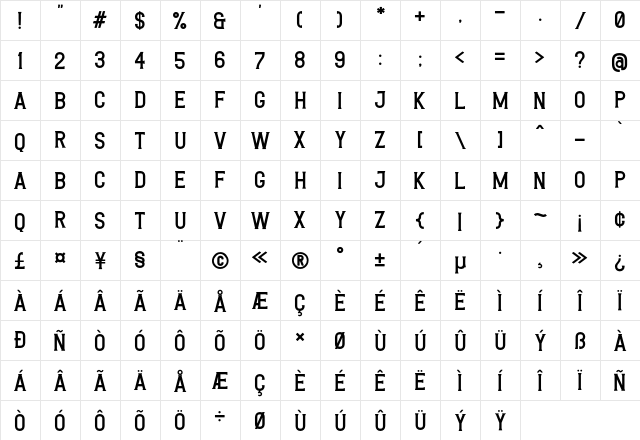
Rutheride Regular
| Foundry | Hendra Pratama & Fajar Abdul Fatah |
| Designer | Hendra Pratama & Fajar Abdul Fatah |
Design Context for Rutheride Typeface
Rutheride offers clean, dependable letterforms without strong stylistic allegiance, making it a practical choice for designers who need flexibility.